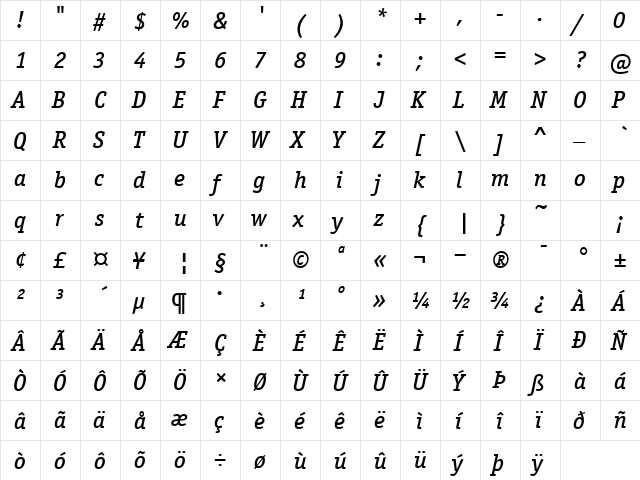
OfficinaSerITCTT MediumItalic
| Foundry | International Typeface Corporation |
| Designer | Erik Spiekermann/Ole Schaefer |
Design Context for OfficinaSerITCTT Typeface
OfficinaSerITCTT takes a measured approach to typography — its balanced proportions and neutral character make it a reliable workhorse for both digital and print work. The slanted form adds forward momentum and visual energy.